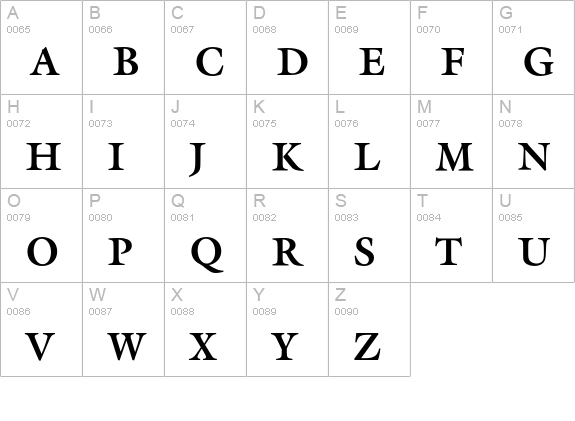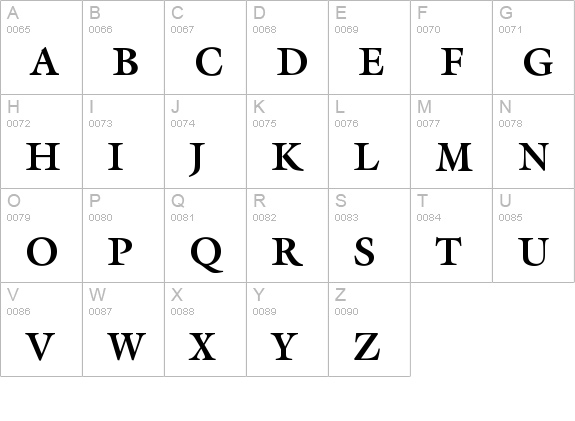
GalliardEF-Bold is a strong, high-contrast variant in the GalliardEF typeface family \xE2\x80\x94 well suited to headlines, attention-grabbing titles, and strong calls-to-action.
GalliardEF-Bold is a striking and powerful font, designed with a bold and confident aesthetic. Its strong and clean lines make it a perfect choice for headlines, titles, and bold statements. With its distinctive character and excellent legibility, GalliardEF-Bold commands attention and adds a touch of sophistication to any design project. What sets GalliardEF-Bold apart is not only its exceptional design but also the fact that it is available free of charge. Yes, you read that right! This premium font can be freely downloaded at FontsMarket.com, making it an incredible value for designers, creatives, and anyone in need of a bold and impactful typeface. Whether you are creating a logo, poster, or any other design element that requires a bold and eye-catching font, GalliardEF-Bold is the perfect choice. Its versatility allows it to be used across various mediums, from print to digital, ensuring that your message is delivered with the utmost impact. The design of GalliardEF-Bold is carefully crafted, with attention to detail that is evident in every curve and stroke. Its balanced proportions and strong presence make it not only visually appealing but also highly readable, even in smaller sizes. With GalliardEF-Bold, you have the freedom to unleash your creativity and make a statement. Download this exceptional font for free at FontsMarket.com and elevate your designs to new heights. Whether you are a professional designer or someone who simply appreciates the power of a well-designed font, GalliardEF-Bold is a must-have in your font library. Don't miss out on this fantastic opportunity to enhance your design projects with a high-quality, freely available font. Download GalliardEF-Bold today and experience the impact it can bring to your creative endeavors.